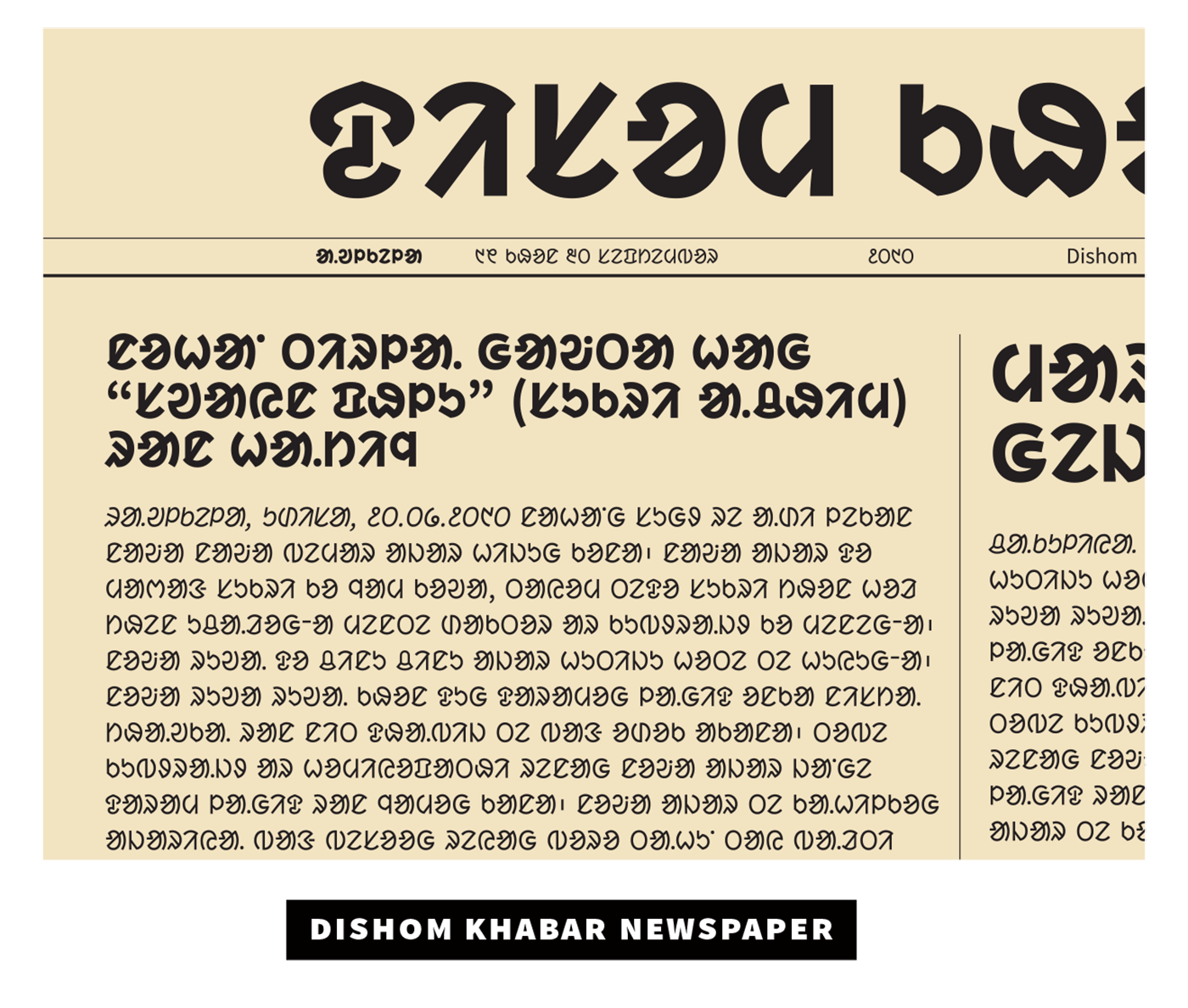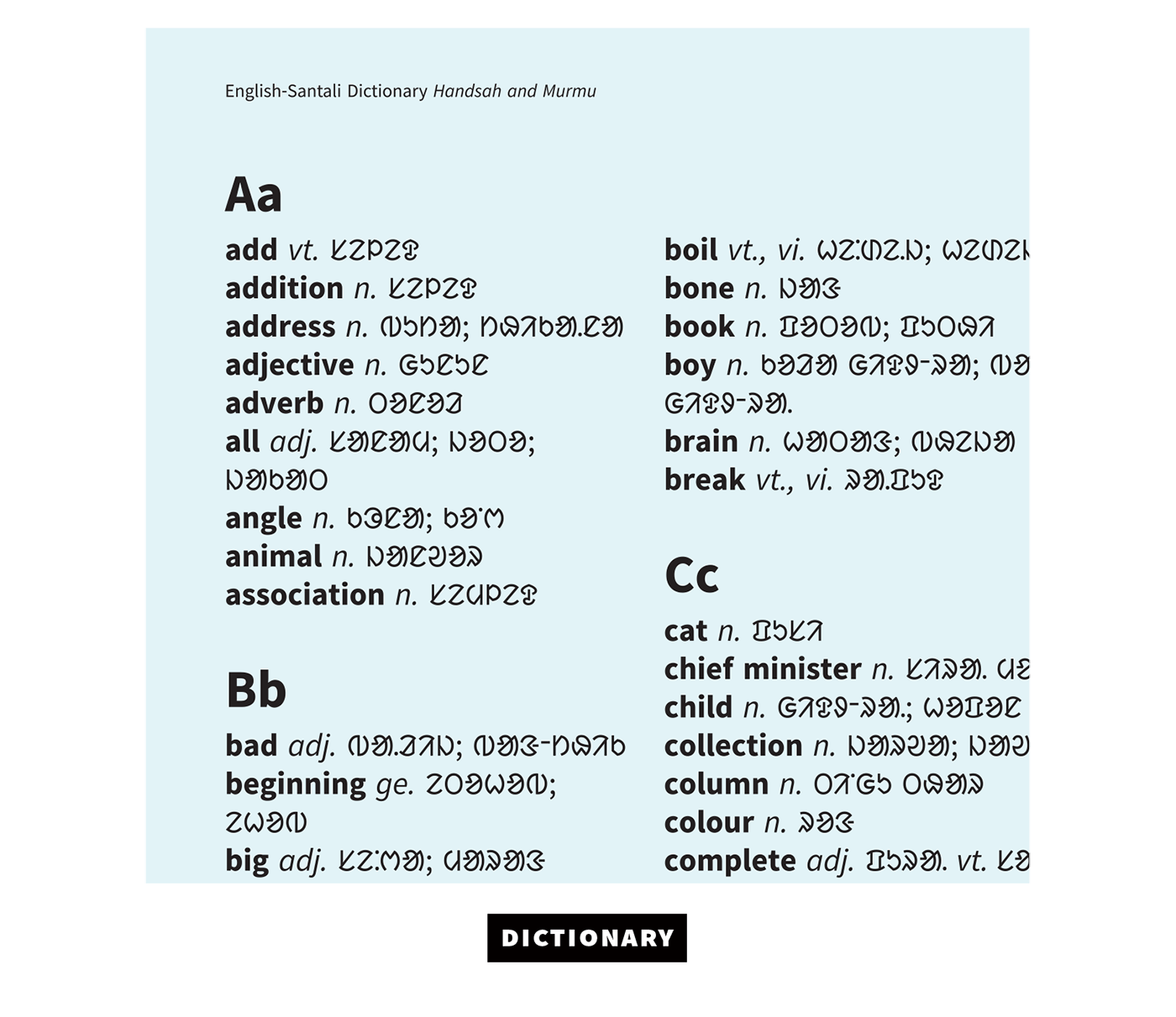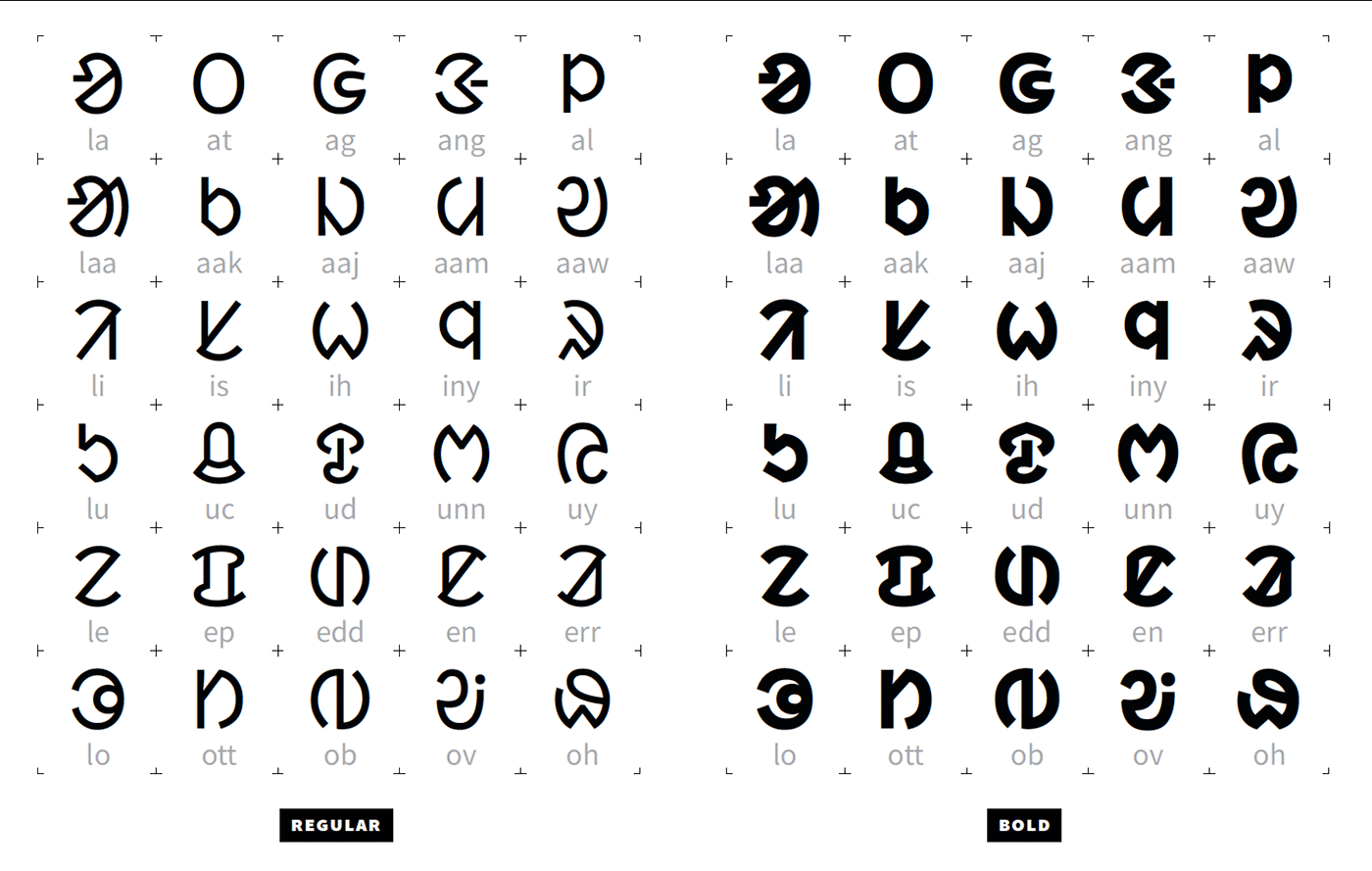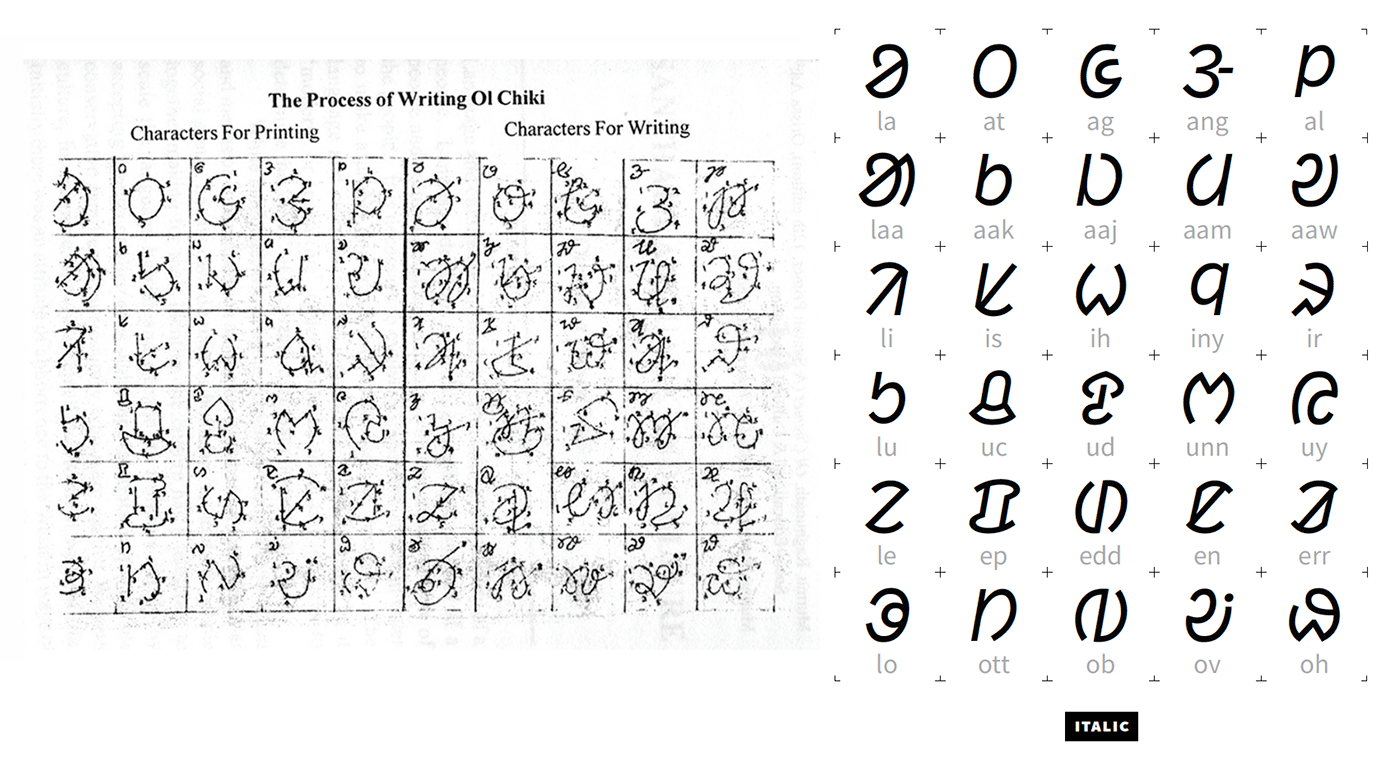
Project: Guru Gomke
Designer: Pooja Saxena
Company: Matra Type
Team Members: Subhashish Panigrahi
Client: Centre for Internet and Society’s Access to Knowledge (CIS-A2K)
Published: 2016
Pooja Saxena has designed some really nice Indic script typeface families (Farsan Gujarati and Cambay Devanagari for example), but I want to take a moment to shine a light on one particular project of hers.
Guru Gomke is a typeface family that she designed for the Ol Chiki script. Ol Chiki is an alphabet that was developed in the 1920s to write Santali, a language used in India, Bangladesh, Bhutan, and Nepal by roughly 6 million people (that’s greater than the population of Norway or Ireland). The Santali-speaking population has historically been marginalized, and few resources have been developed to enable them to type and use computers in their own language.
How few? Well, before Pooja began her work on this project, not a single Unicode-compliant font existed for the Ol Chiki writing system. Zero. Ol Chiki keyboard layouts for inputting the characters also didn’t exist. Recognizing this need, Saxena collaborated with Open Internet activist Subhashish Panigrahi, to develop these tools.
The result of their research, design, and engineering was Guru Gomke – an open-source, free-use font family, as well as browser-based and installable input tools for Santali typing. In Guru Gomke, Saxena designed a regular, a bold, and an italic style that was based on handwritten models.
By boldly venturing into unknown territory, Saxena and Panigrahi have given Santali speakers the essential tools needed to express themselves, to access knowledge, and to seize new economic and educational opportunities. I have the utmost respect for Pooja, Subhashish, and the other designers, engineers, and activists working on marginalized script projects like this.